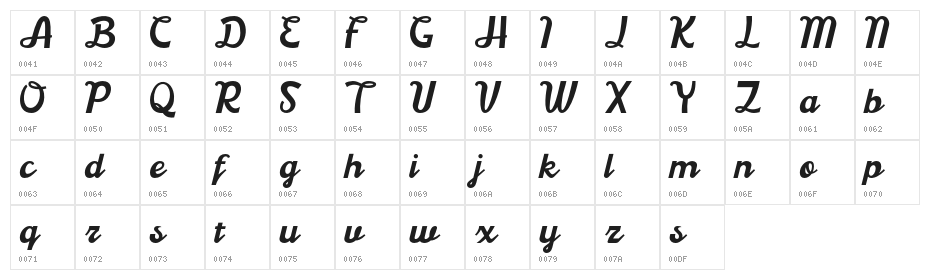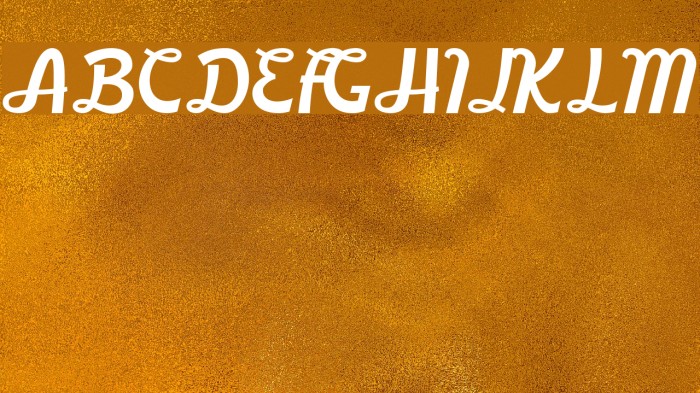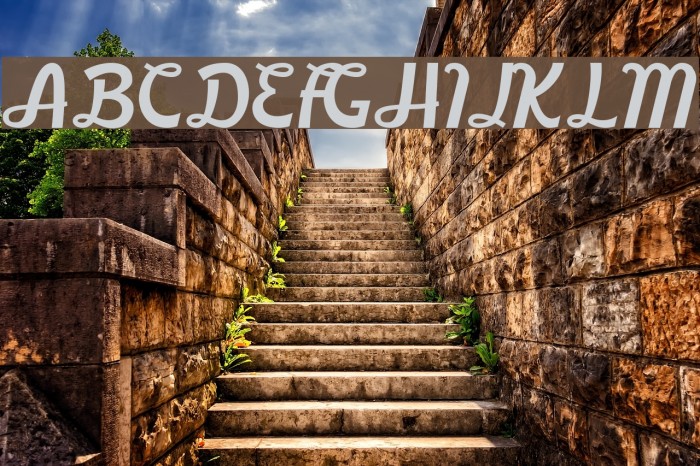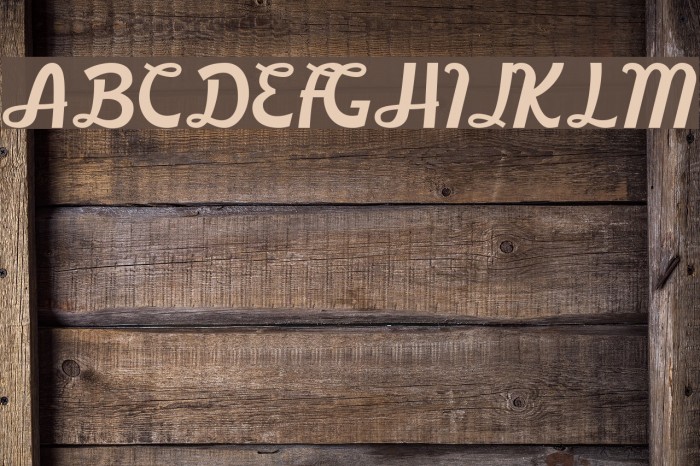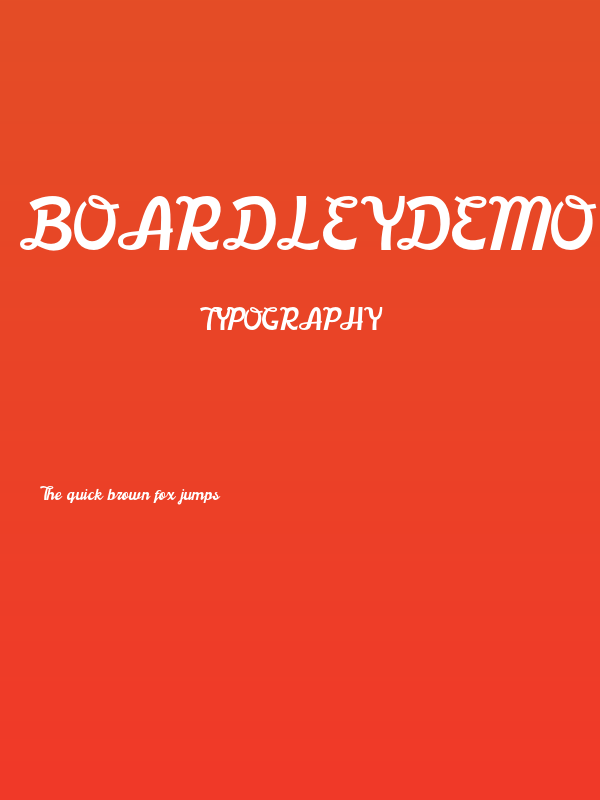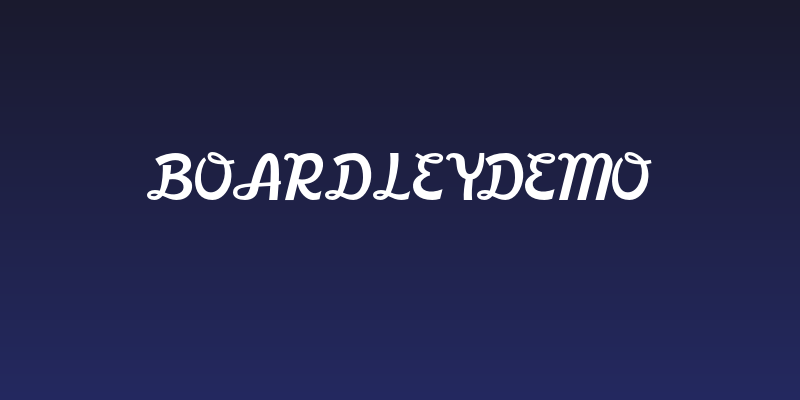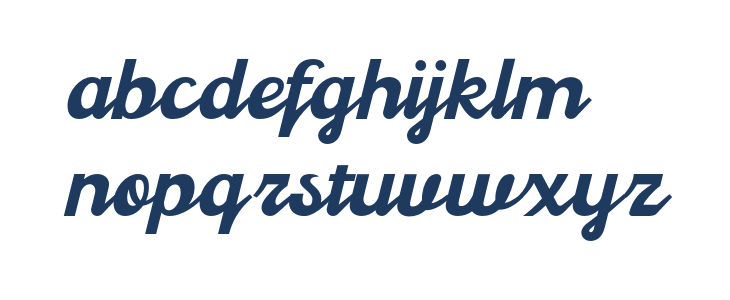
BoardleyDemo Font
BoardleyDemo Description
This font features a bold and flowing script style, characterized by its elegant curves and smooth, connected strokes. The uppercase letters exhibit a graceful, looping design, while the lowercase letters maintain a consistent, fluid appearance. The overall look is both sophisticated and approachable, making it suitable for a variety of design applications. The font's bold weight and medium contrast enhance its readability, while the slightly condensed width adds a touch of modernity. Its unique style is perfect for projects that require a personal, handwritten touch.
| Overall Style | Elegant, Modern |